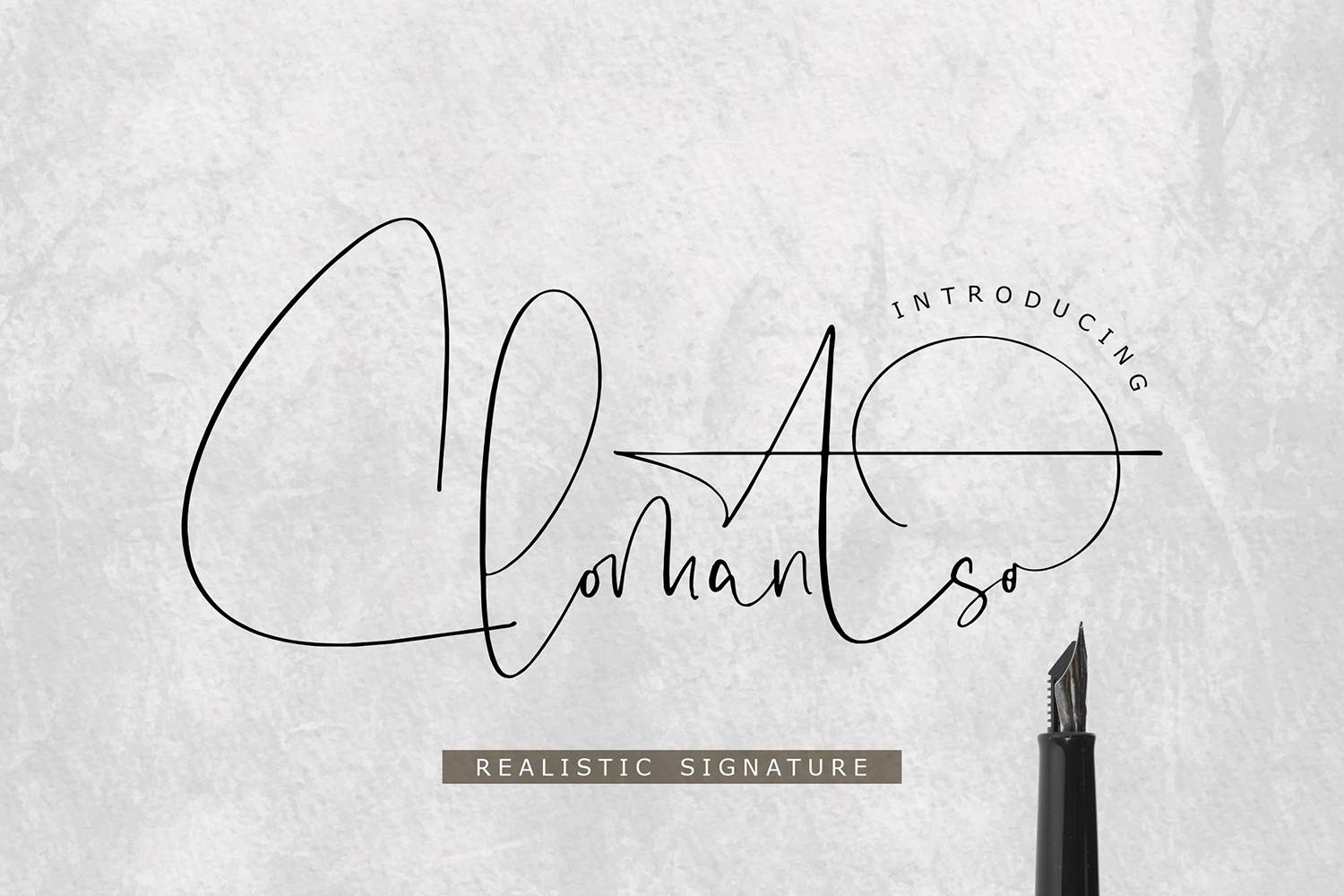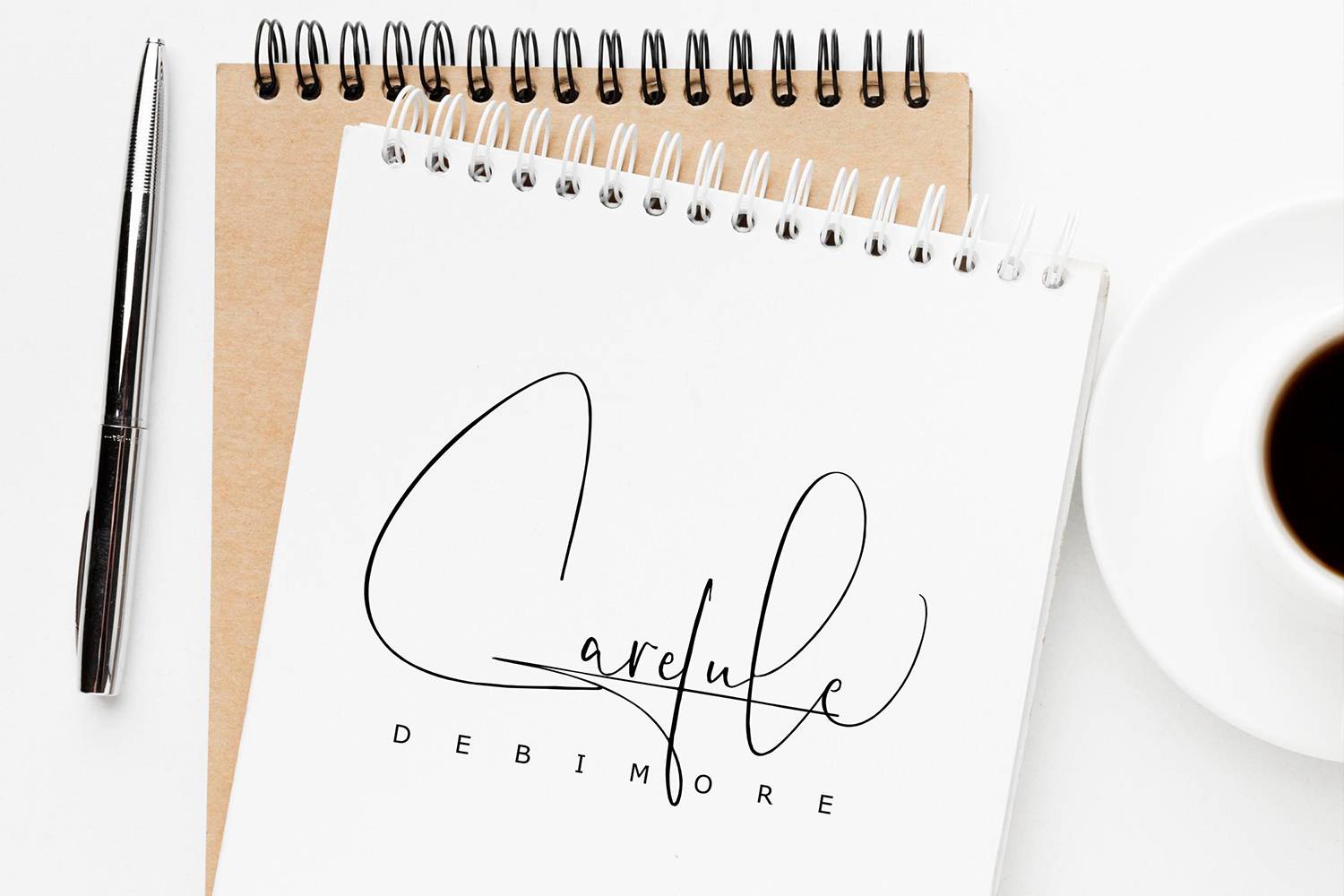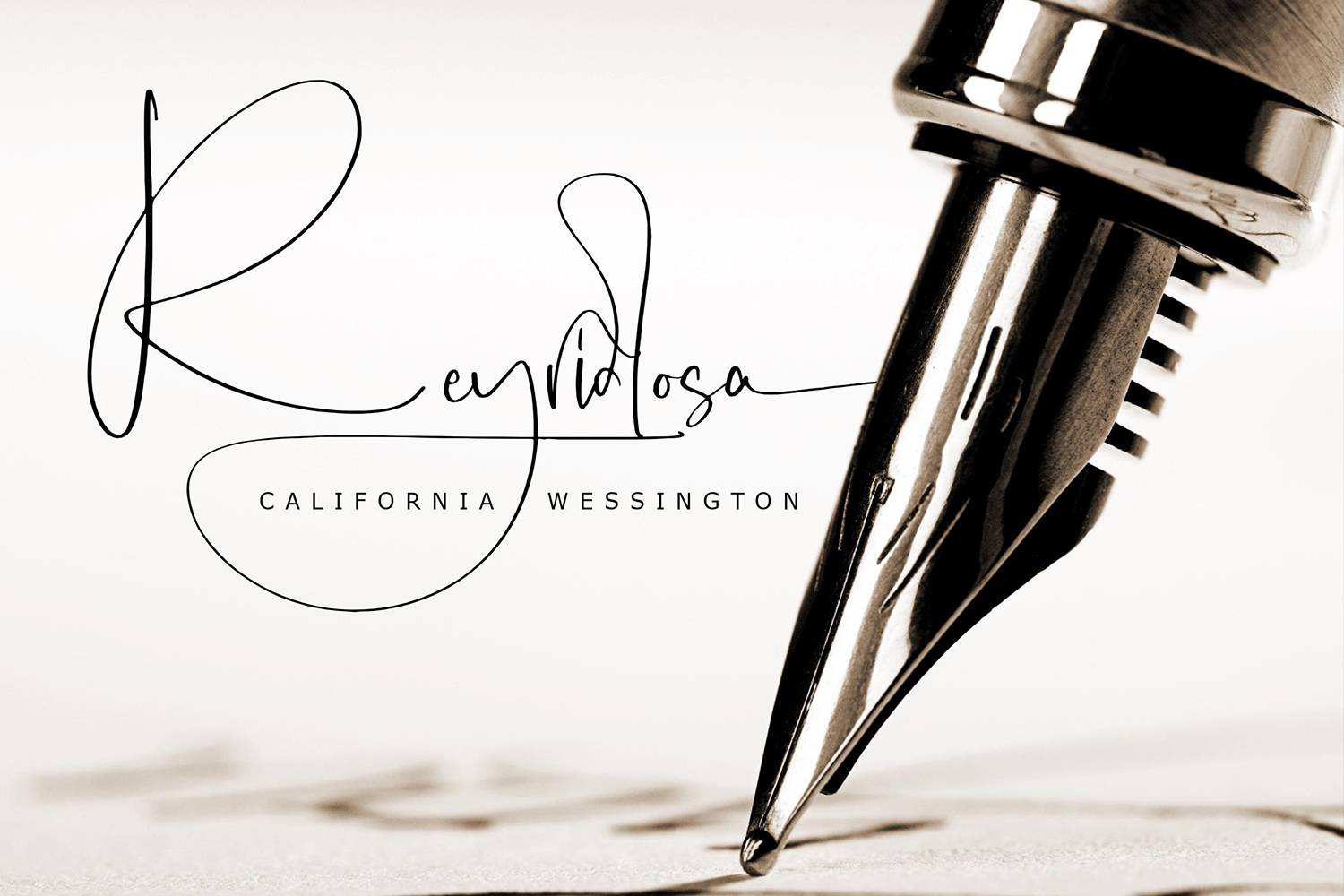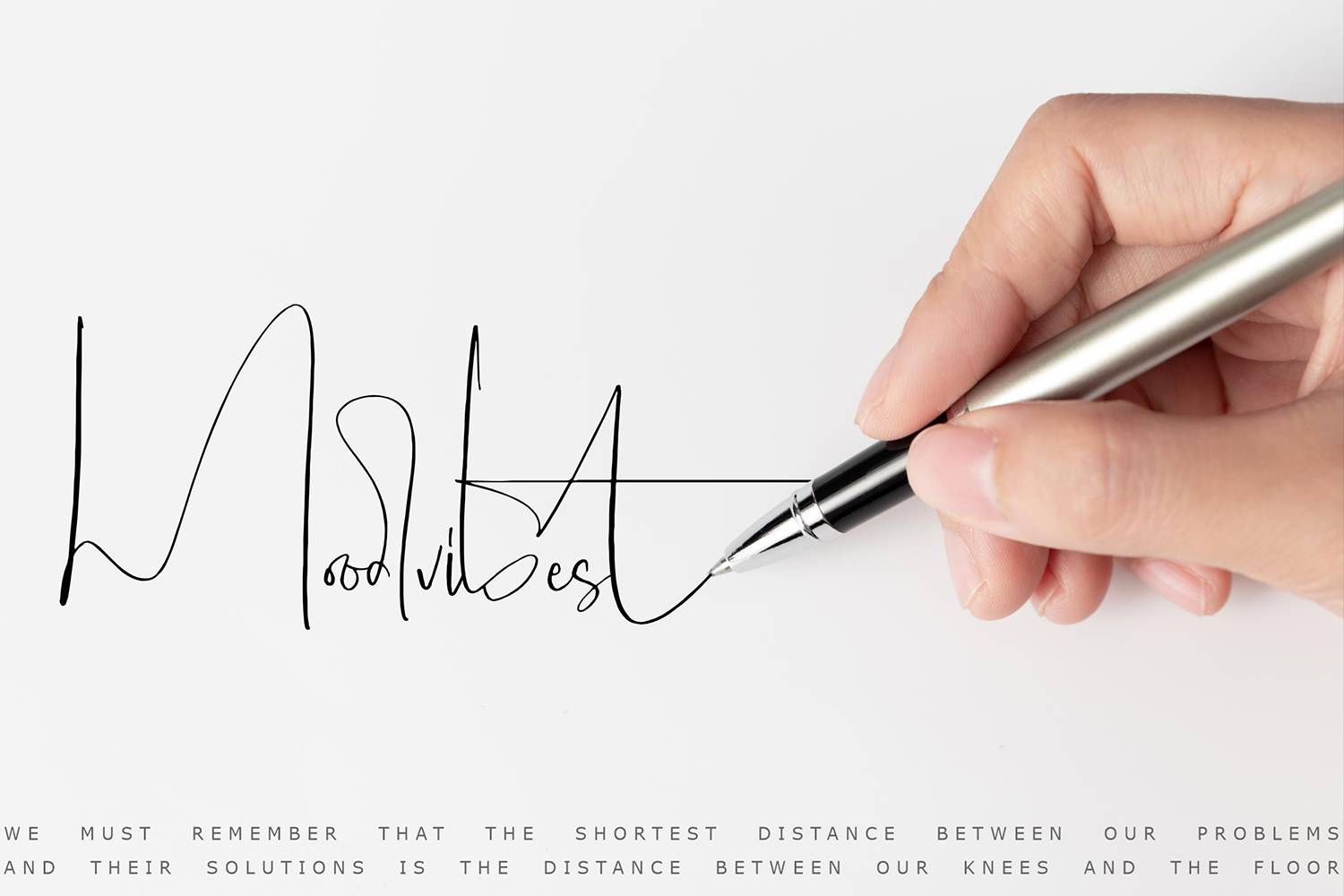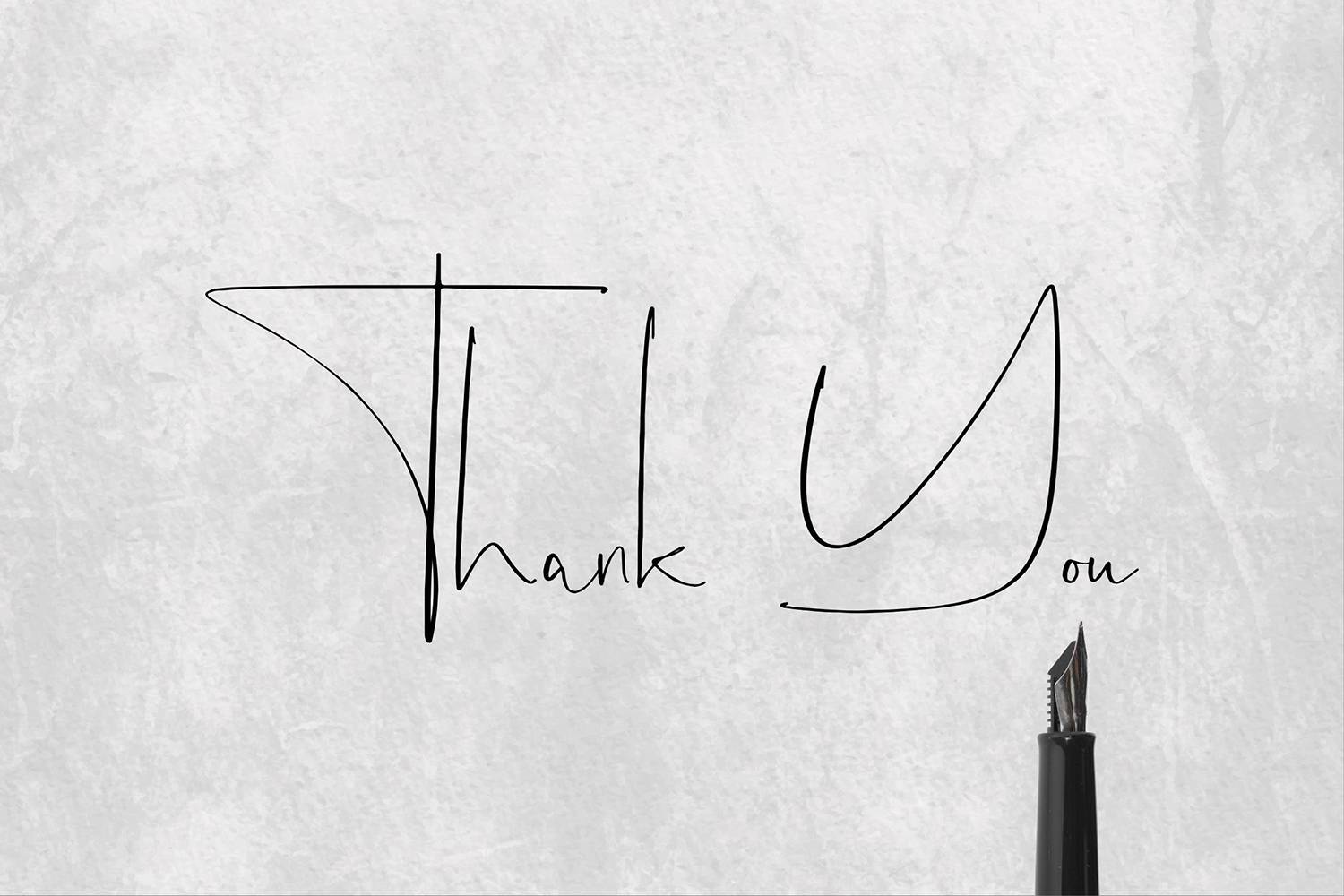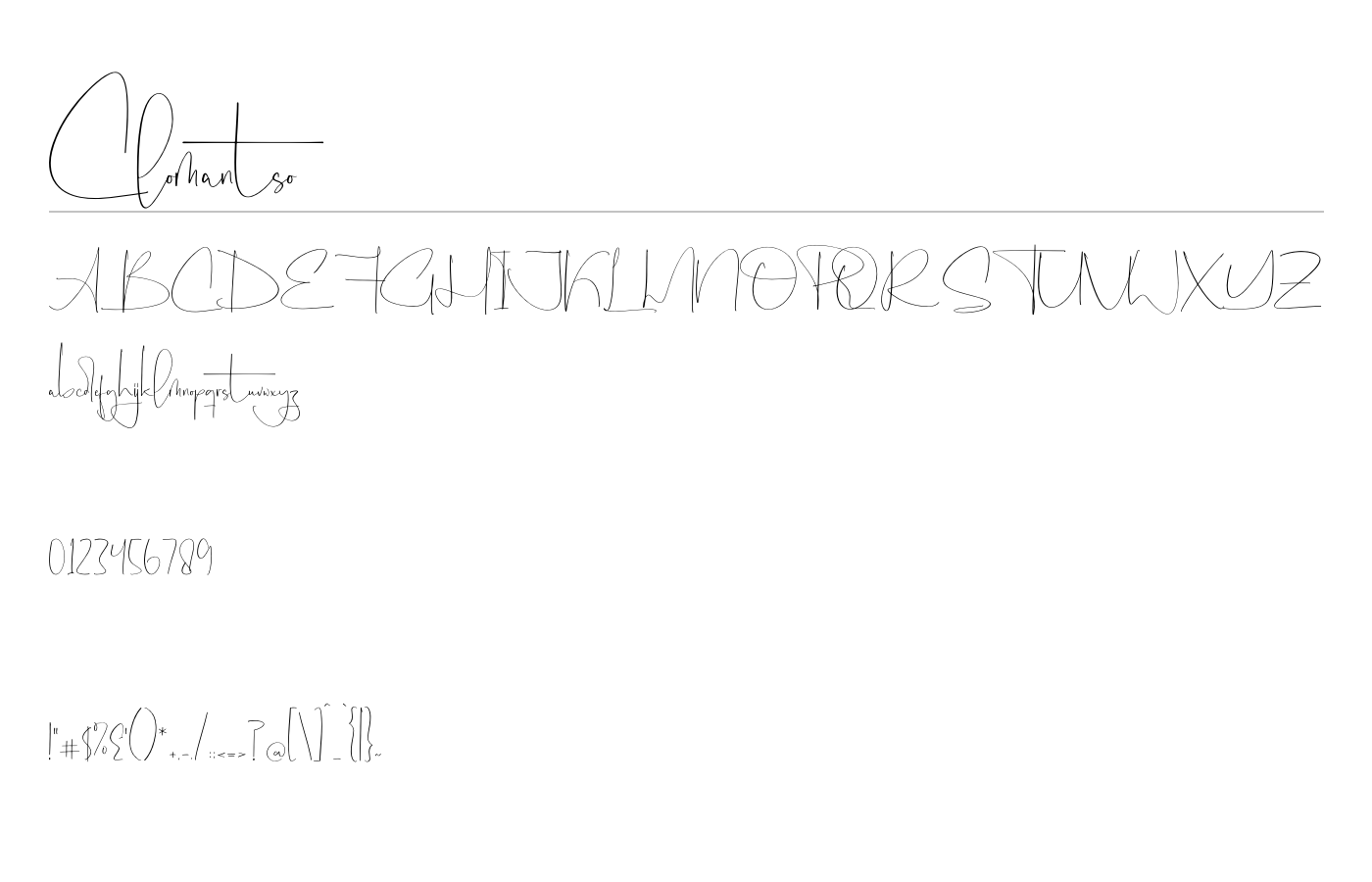
Clomantso is a delicate, handwritten script font characterized by its ultra-thin, flowing lines and elegant, airy letterforms. Its tall, narrow proportions and whimsical style make it perfect for creative and sophisticated designs such as personal branding, boutique logos, or stylish invitations where a light, artistic touch is desired. This font’s unique charm and refined personality lend a modern, graceful feel ideal for projects that seek to blend elegance with individuality.
Clomantso Font
About Clomantso Font